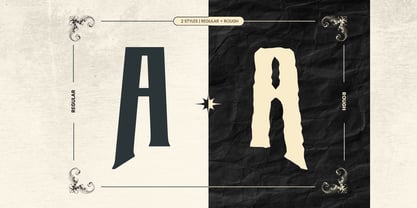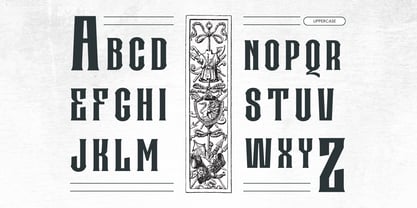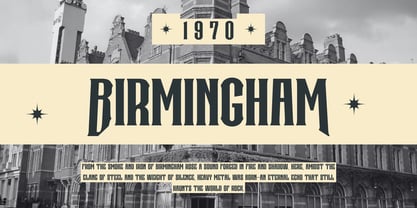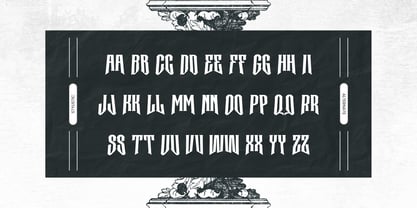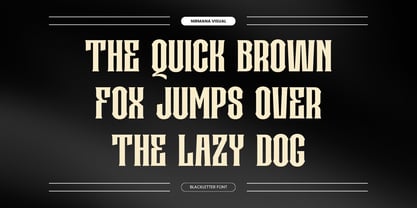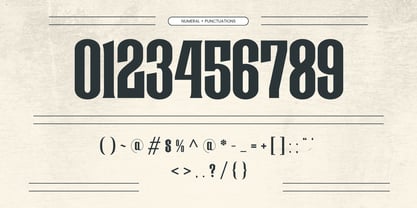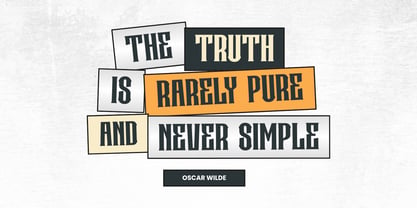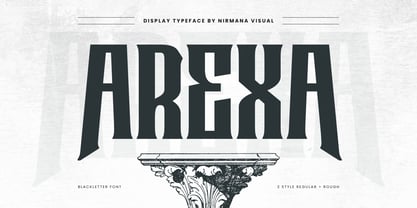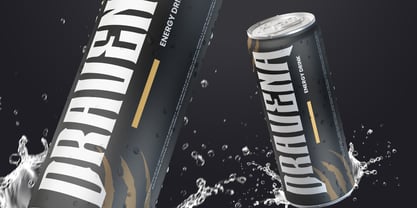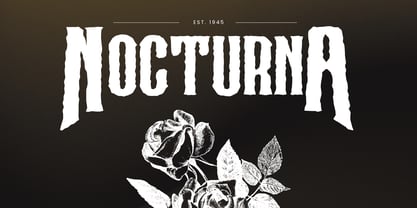
Arexa
by Nirmana Visual
The Arexa Font Family was designed by Sigit Dwipa and published by Nirmana Visual. Arexa contains 2 styles and family package options. More about this family
Arexa is a bold fusion of classic serif and blackletter style, crafted to bring a strong vintage character to your design. Available in Regular and Rough styles, Arexa delivers versatility for creating standout logos, labels, posters, and more. Its unique mix of elegance and raw texture makes it perfect for vintage branding, apparel design, packaging, or any project that needs a timeless yet powerful typographic touch.